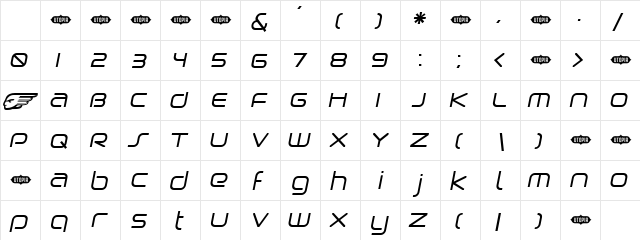
Birdman Oblique Free Font
Birdman Oblique
Design Context for Birdman
Birdman is a composed and adaptable typeface that performs quietly and consistently across a wide range of design contexts. The slanted form adds forward momentum and visual energy.